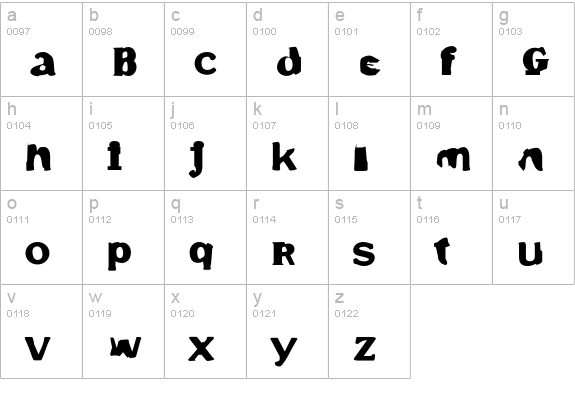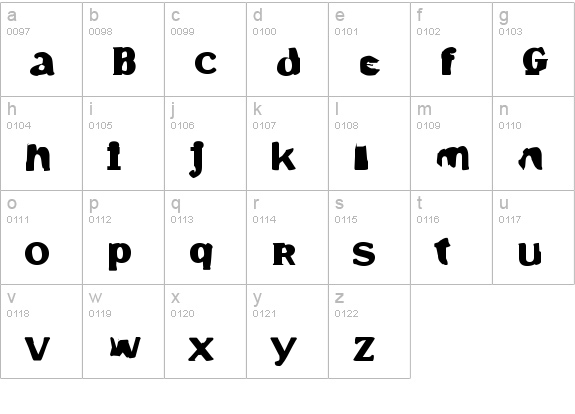
Introducing Dirty-SixTwo font - a bold and edgy typeface that exudes a rebellious spirit and a touch of urban grit. With its distressed and rugged appearance, Dirty-SixTwo is perfect for adding a raw and unconventional vibe to your designs. This versatile font is ideal for posters, album covers, merchandise, and any project that calls for a bold statement. What's even better is that Dirty-SixTwo is available for free download at FontsMarket.com. Yes, you read that right - you can unleash the power of this unique font without spending a dime. Don't miss out on the opportunity to elevate your creations with the distinctive style of Dirty-SixTwo. Download it now and let your creativity run wild!